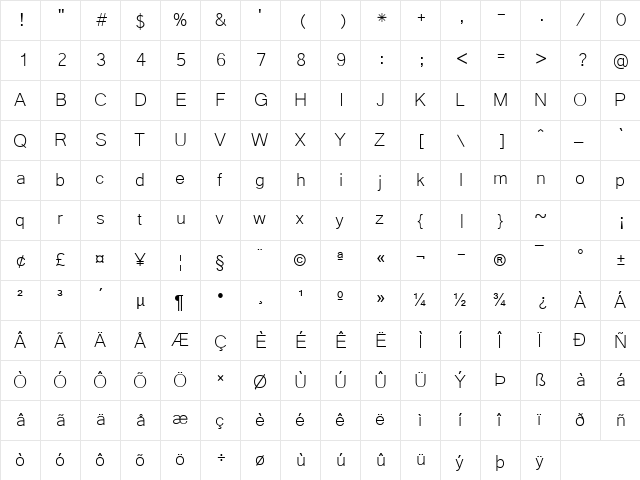
Microsoft Yi Baiti Regular
| Foundry | Microsoft Corporation |
| Designer | Beijing Founder Electronic CO. LTD. |
Design Context for Microsoft Yi Baiti Typeface
Microsoft Yi Baiti takes a measured approach to typography — its balanced proportions and neutral character make it a reliable workhorse for both digital and print work.
Pro Tip: Use Microsoft Yi Baiti in both headline and body roles to test its range before committing to a single application.